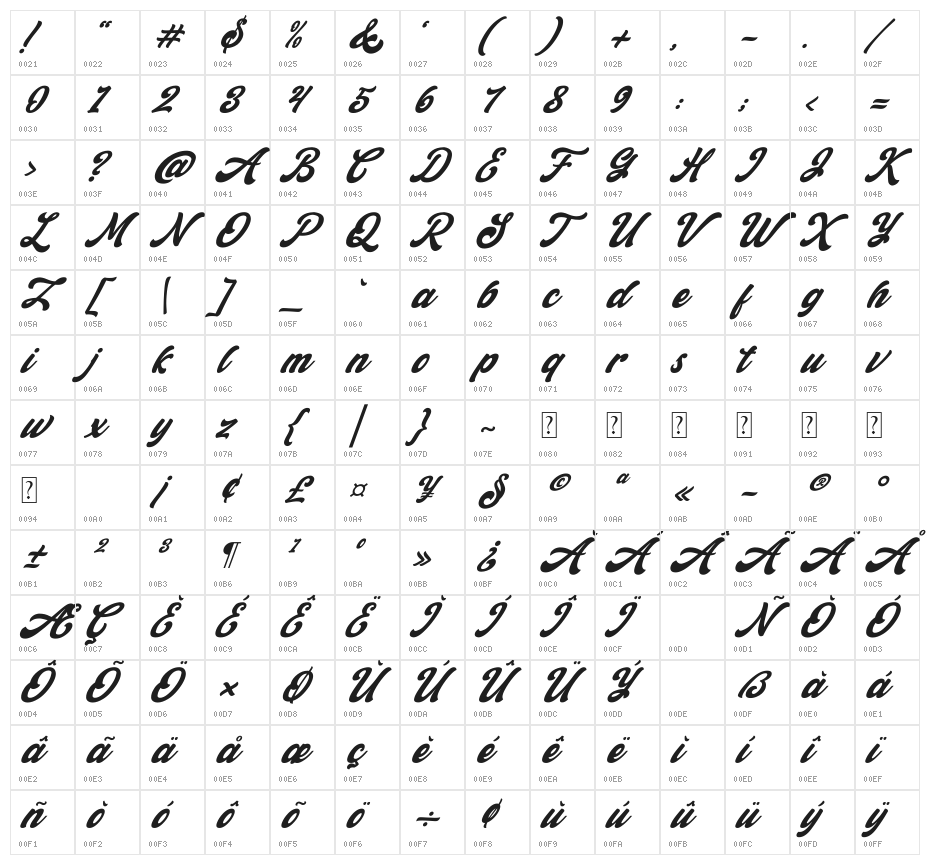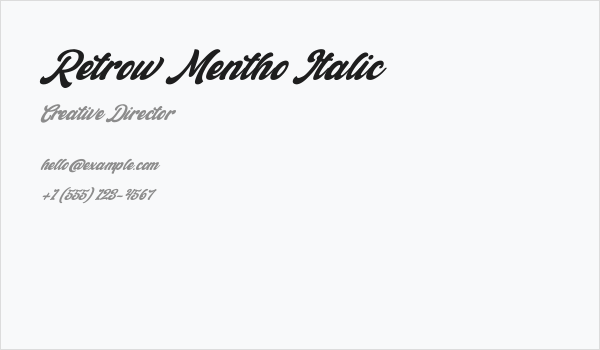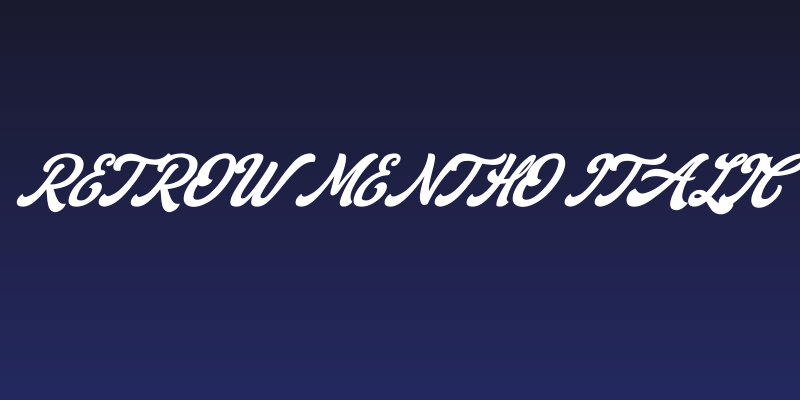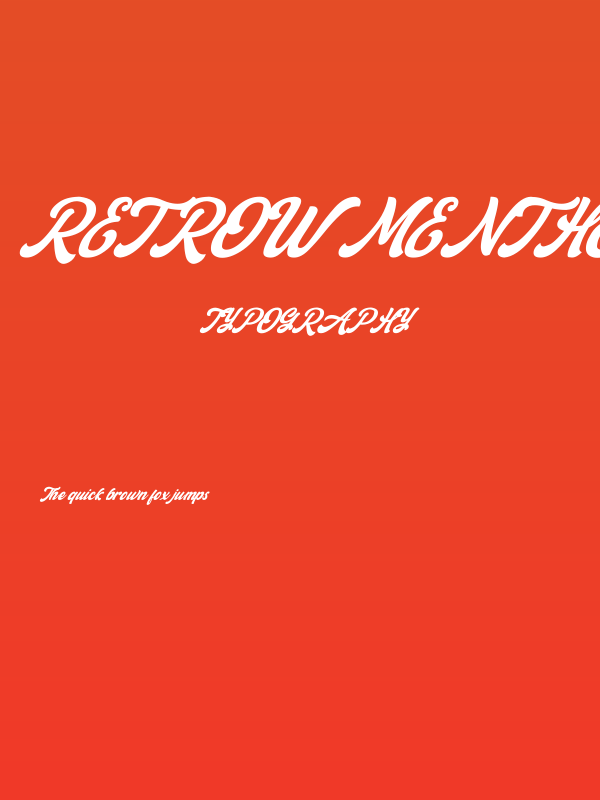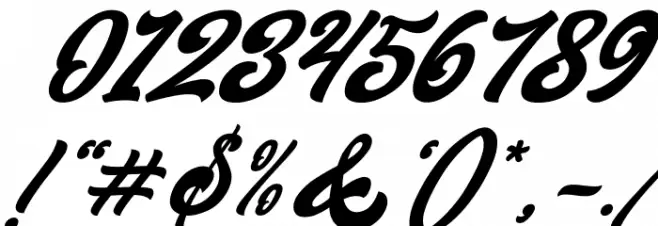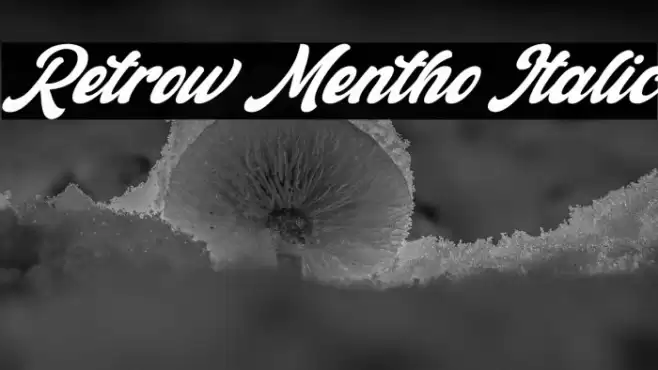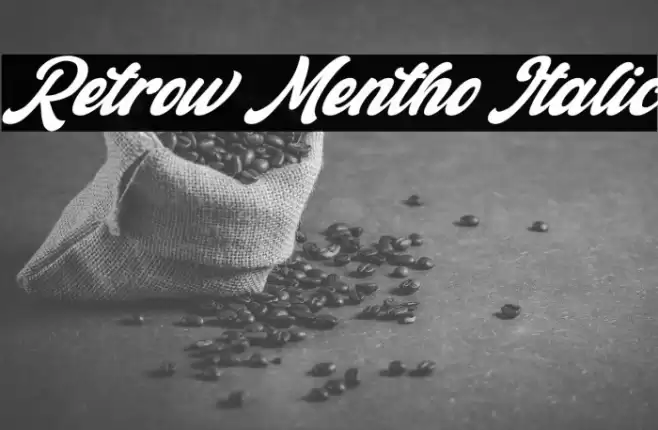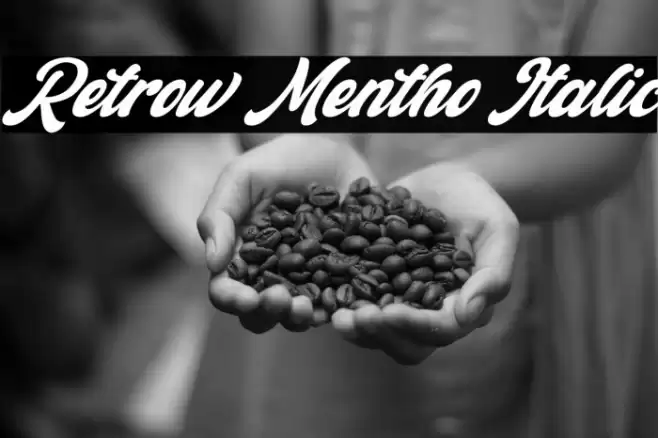
Retrow Mentho Italic Font
This font features a bold and dynamic script style with a strong italic slant, giving it a sense of motion and fluidity. The characters are closely connected, creating a cohesive and flowing appearance. The strokes are thick and consistent, providing a robust and impactful look. The uppercase letters are slightly larger and more pronounced, while the lowercase letters maintain a smooth and elegant form. The numerals and special characters follow the same stylistic approach, ensuring uniformity across all elements. This font exudes a retro and playful vibe, making it suitable for designs that aim to capture attention and convey a sense of fun and creativity.
| Overall Style | Retro, Decorative |
| Proposed Projects | Ideal for vintage-themed posters, creative branding, playful invitations, and eye-catching headlines. |